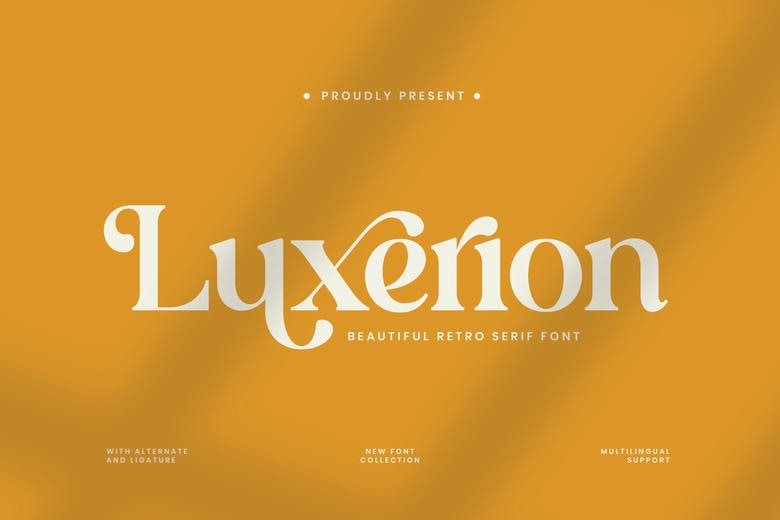
Luxerion Font
Luxerion is a gorgeous retro serif typeface with a touch of modern sophistication. Drawing on traditional vintage styles and contemporary elegance, Luxerion adds a touch of luxury and charm to any design. Its elegant curves, stylish ligatures and well-balanced letterforms make Luxerion ideal for logos, branding, packaging, editorials or social media designs that want to convey luxury and creativity.
Luxerion Serif Font